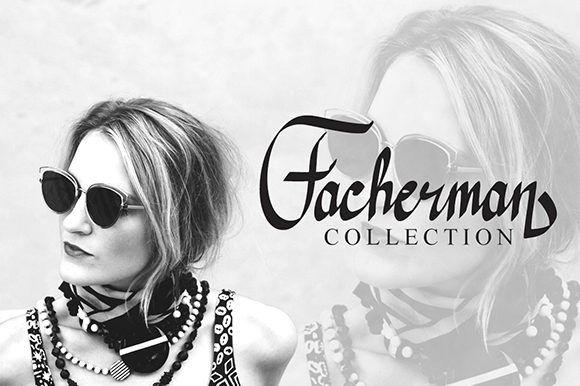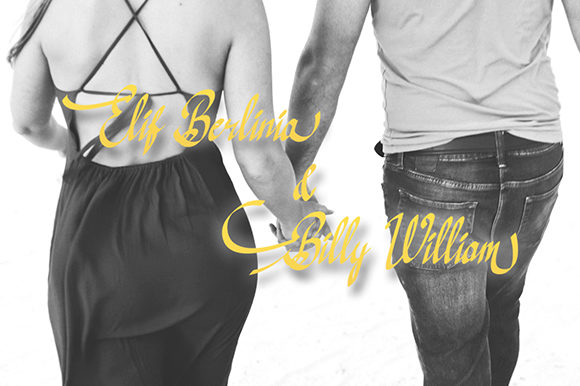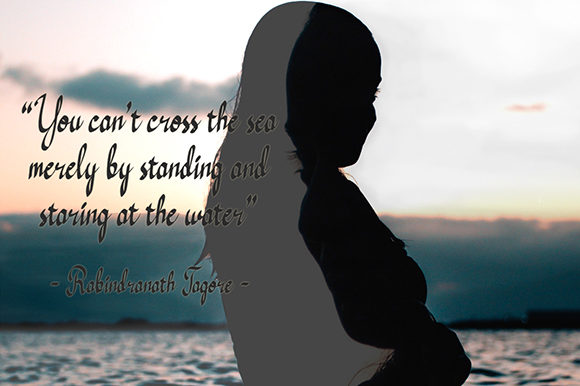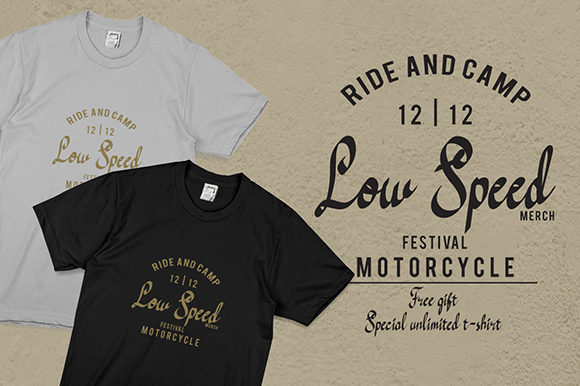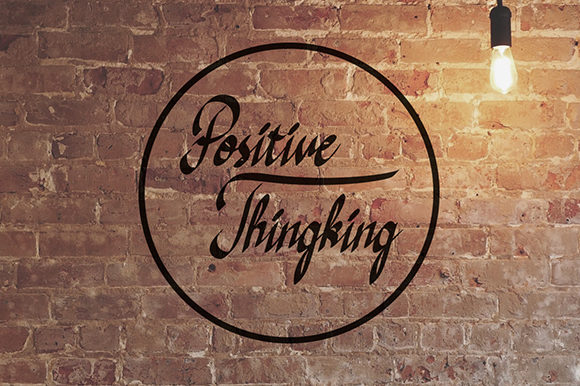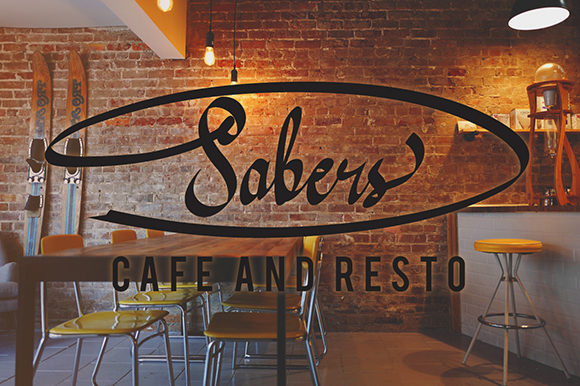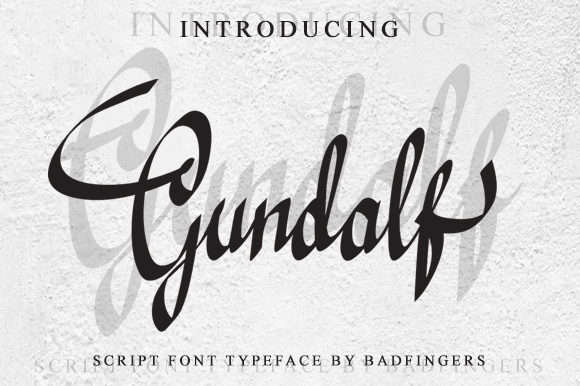
Gundalf Font: A Magical Script Font for Your Creative Projects
The Gundalf font is a striking script font that has been gaining popularity among designers and crafters alike. Its elegant and sophisticated design makes it perfect for a variety of creative projects, from branding and advertising to packaging and digital media. In this article, we’ll take a closer look at the Gundalf font, its features, and how you can use it to elevate your designs.
What is the Gundalf Font?
The Gundalf font is a script font that is inspired by the magical and mystical world of J.R.R. Tolkien’s Middle-earth. Its unique design is characterized by flowing lines, elegant curves, and a sense of sophistication that is hard to find in other fonts. The Gundalf font is perfect for creating eye-catching headlines, titles, and quotes that are sure to grab attention.
Key Features of the Gundalf Font
The Gundalf font has several key features that make it stand out from other script fonts. Some of its notable features include:
- Great Readability: The Gundalf font has excellent readability, making it perfect for use in body text, headlines, and titles.
- Elegant Design: The font’s elegant design makes it perfect for use in high-end branding, advertising, and packaging.
- Versatility: The Gundalf font can be paired with a variety of other fonts to create a unique and cohesive look.
- Magical Flair: The font’s magical flair makes it perfect for use in fantasy-themed projects, such as book covers, posters, and digital media.
How to Use the Gundalf Font
The Gundalf font can be used in a variety of creative projects, including:
- Branding and Advertising: Use the Gundalf font to create eye-catching logos, headlines, and taglines that are sure to grab attention.
- Packaging Design: The font’s elegant design makes it perfect for use in packaging design, such as labels, tags, and product packaging.
- Digital Media: Use the Gundalf font to create engaging digital media, such as social media graphics, blog posts, and website headers.
- Crafting and Scrapbooking: The font’s magical flair makes it perfect for use in crafting and scrapbooking projects, such as card making, journaling, and paper crafting.
Pairing the Gundalf Font with Other Typefaces
The Gundalf font can be paired with a variety of other typefaces to create a unique and cohesive look. Some popular font pairings include:
- Serif Fonts: Pair the Gundalf font with serif fonts, such as Times New Roman or Garamond, to create a classic and sophisticated look.
- Sans-Serif Fonts: Pair the Gundalf font with sans-serif fonts, such as Arial or Helvetica, to create a modern and clean look.
- Script Fonts: Pair the Gundalf font with other script fonts, such as the Pacifico font or the Great Vibes font, to create a elegant and cursive look.
The Gundalf font is a striking script font that is perfect for designers and crafters looking to add a touch of magic to their creative projects. Its elegant design, great readability, and versatility make it a popular choice for a variety of applications. Whether you’re creating branding materials, packaging, digital media, or crafting projects, the Gundalf font is sure to impress. So why not give it a try and see the magic for yourself?